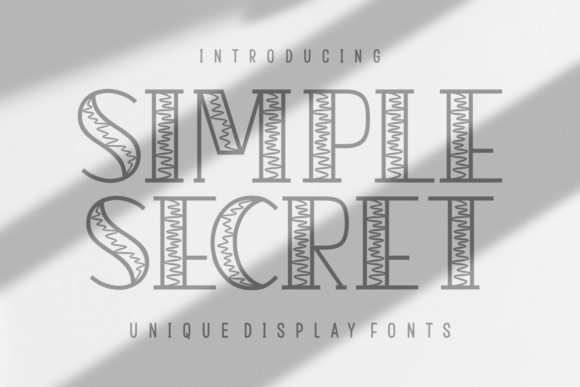
Unleash the hidden eloquence of your designs with the Simple Secret Font - a captivating decorative font family that weaves a tapestry of sophistication and charm. Its intricate and flowing lines dance across your creations, bestowing an air of elegance upon invitations, posters, and social media posts. As if guided by an invisible hand, this font transforms ordinary words into captivating works of art, captivating the eyes and stirring the emotions.
With Simple Secret Font, your designs will transcend the mundane and enter the realm of the extraordinary. Its meticulously crafted characters, adorned with delicate swashes and flourishes, create a visual symphony that resonates with grace and beauty. Each letter is a testament to the font's meticulous craftsmanship, ensuring that your messages are conveyed with the utmost refinement.
Harness the power of Simple Secret Font to elevate your designs to new heights. Its versatility knows no bounds, effortlessly adapting to a myriad of creative endeavors. Whether you seek to craft captivating quotes, design eye-catching posters, or elevate your social media presence, this font will be your steadfast companion. Its inherent charm will captivate your audience, leaving them spellbound by the allure of your creations.
Immerse yourself in the world of Simple Secret Font and discover a treasure trove of creative possibilities. Its user-friendly PUA encoding grants you effortless access to a vast array of glyphs and swashes, empowering you to unleash your imagination and craft designs that shimmer with originality. This font is not merely a tool; it is an extension of your creativity, enabling you to manifest your artistic vision with unparalleled precision and flair.
Seize this opportunity to embrace the Simple Secret Font and embark on a creative odyssey where your designs will flourish and your imagination will soar. Its enchanting allure will transform your creations into masterpieces, leaving an indelible mark on the hearts and minds of your audience. Let Simple Secret Font be your guiding light, illuminating the path to design excellence.